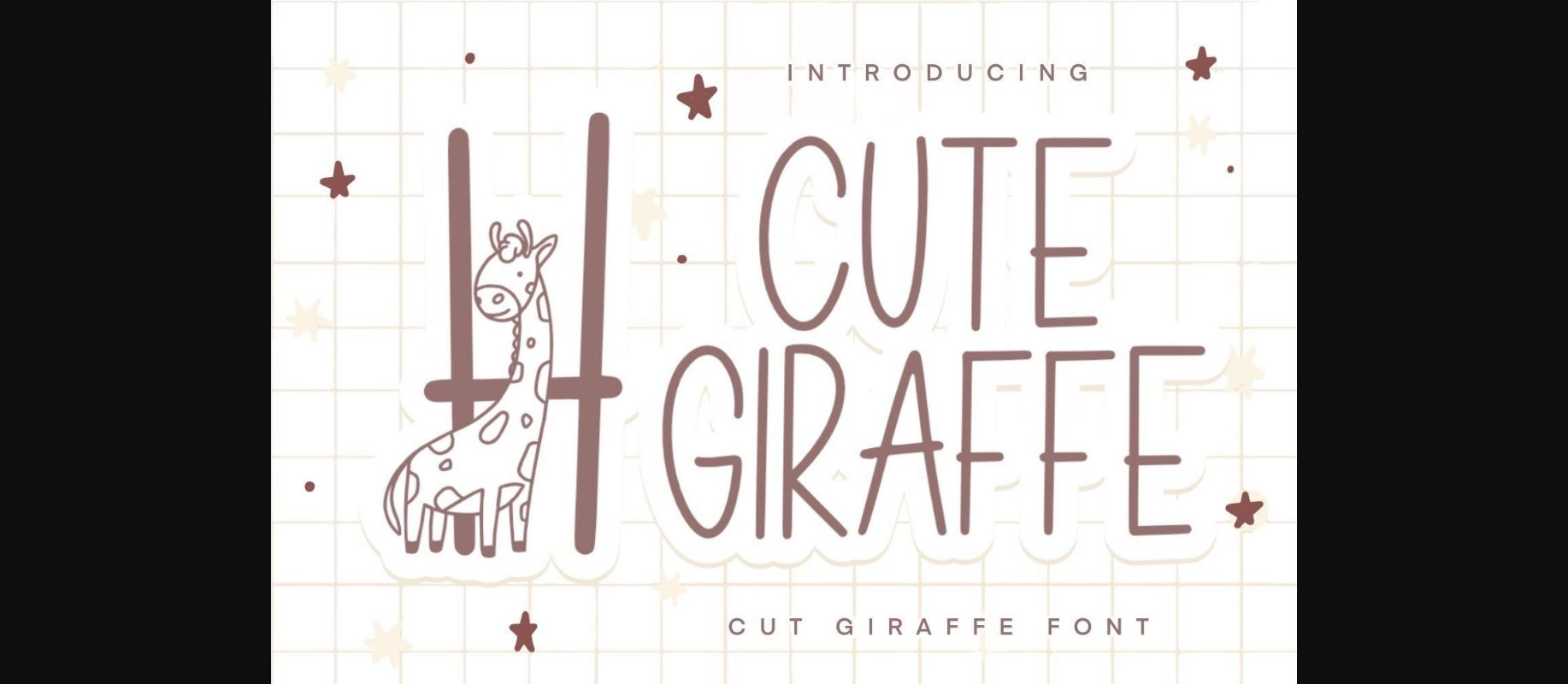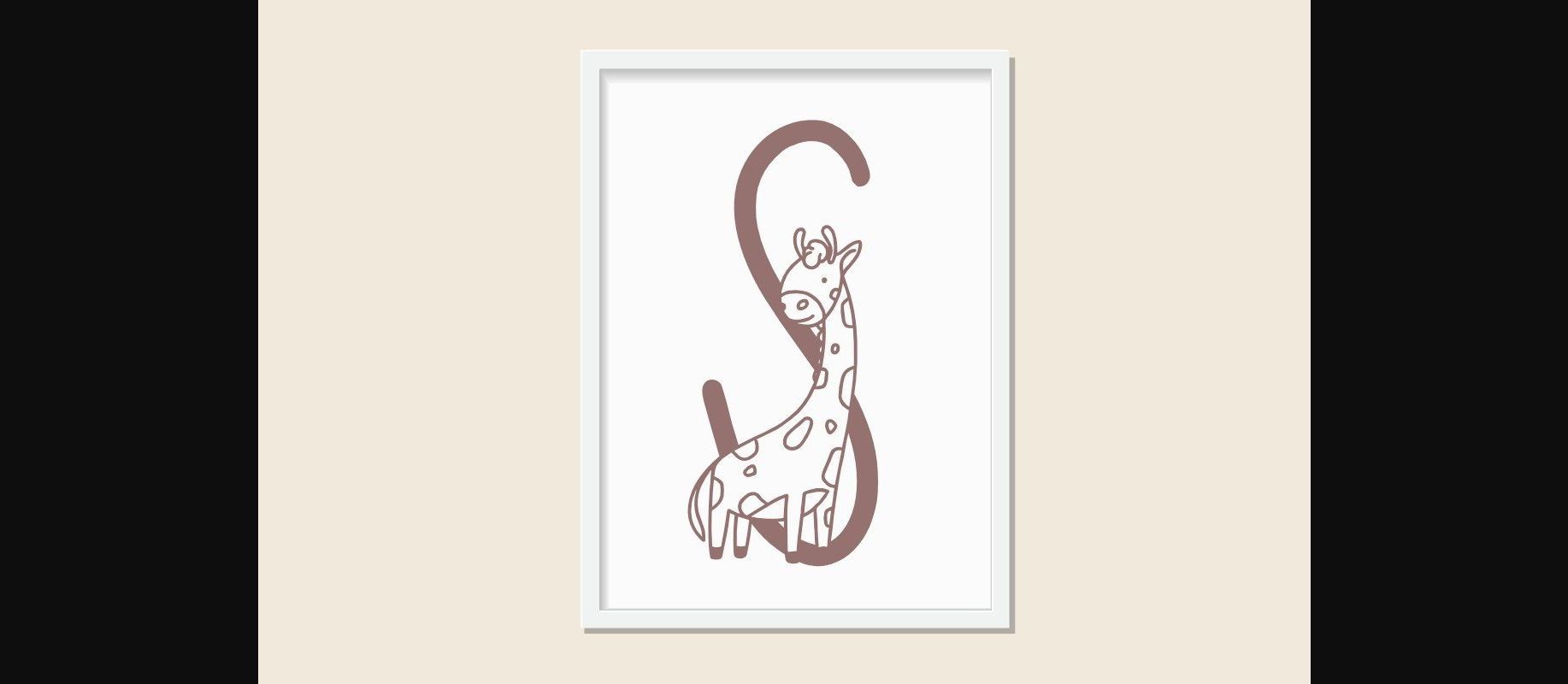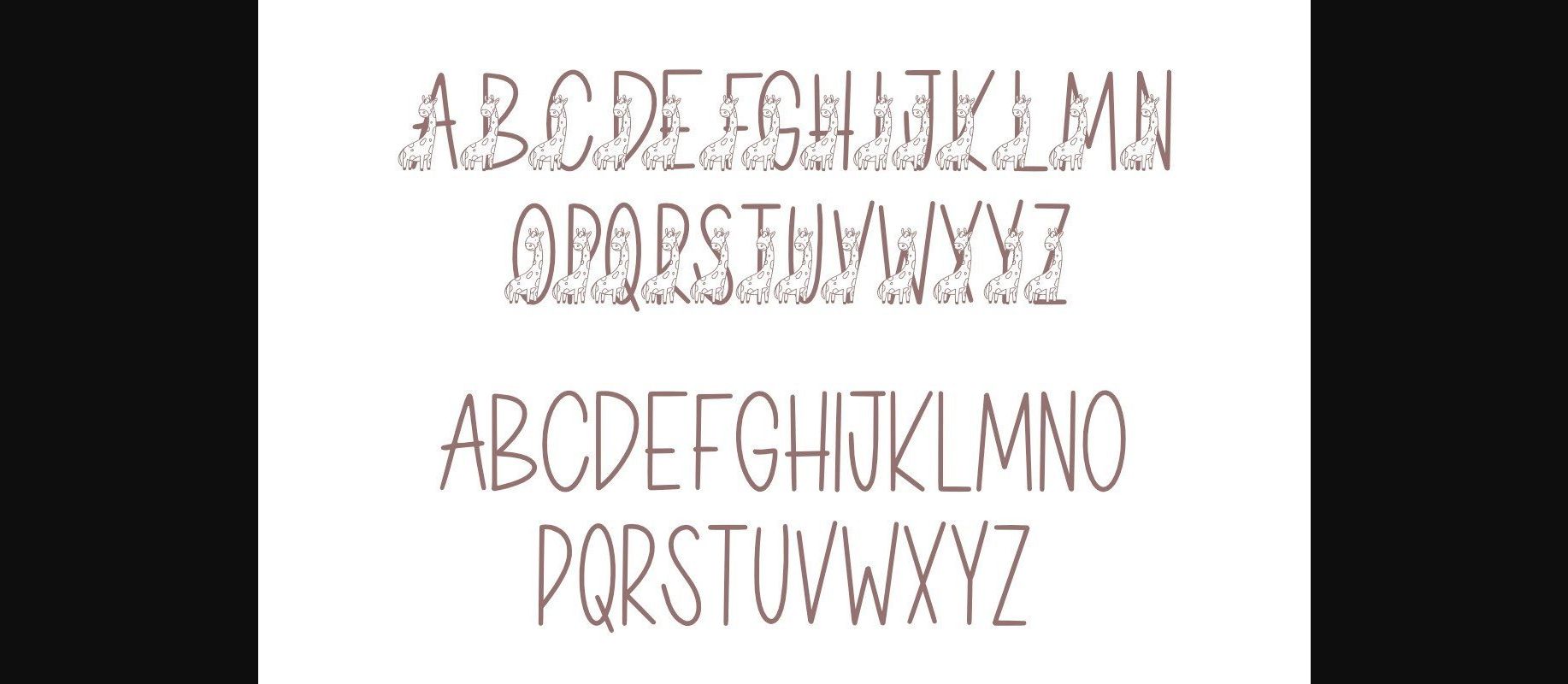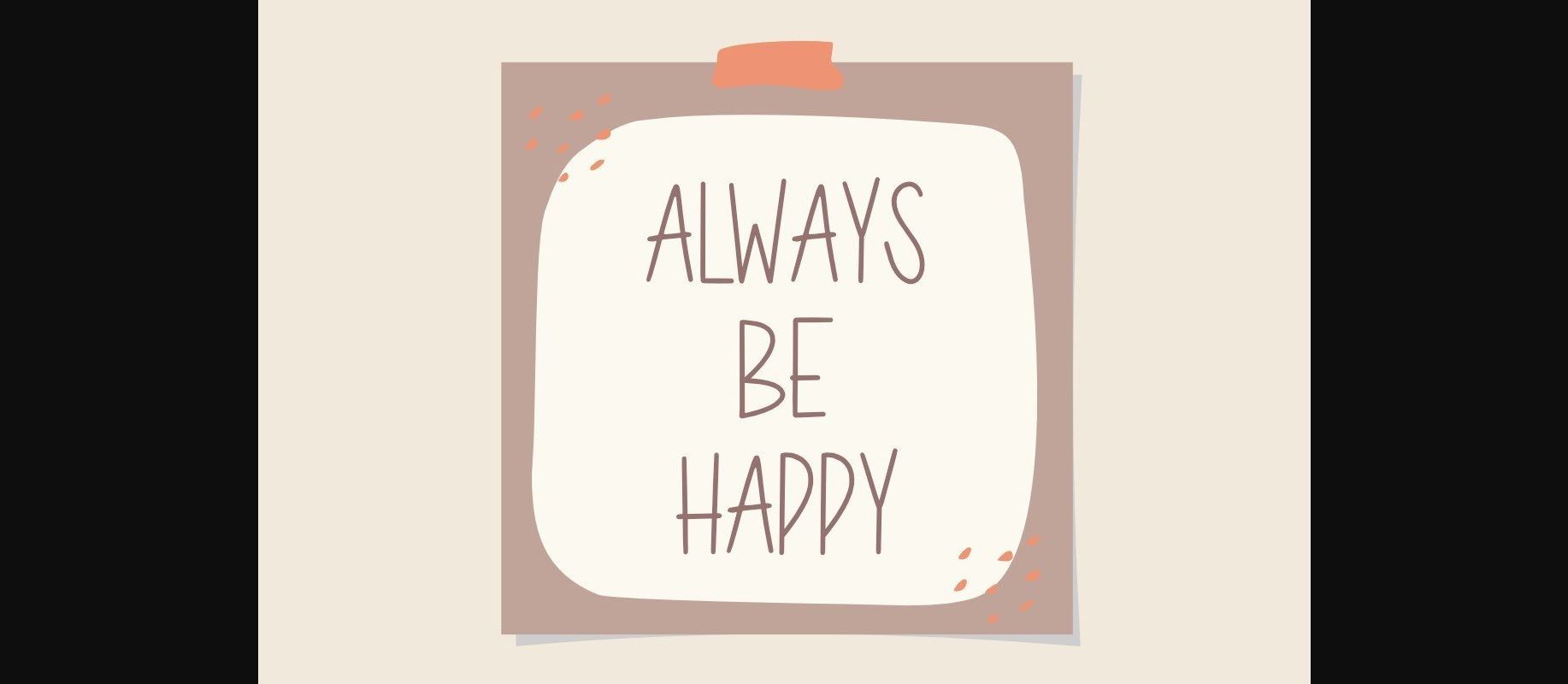
Cute Giraffe Font
About Cute Giraffe Font
Cute Giraffe is a cute and playful decorative font. It embodies playfulness and authenticity and is the perfect choice for any children’s activity or school project. Add this chunky-lettered font to your designs, and notice how it makes them come alive!